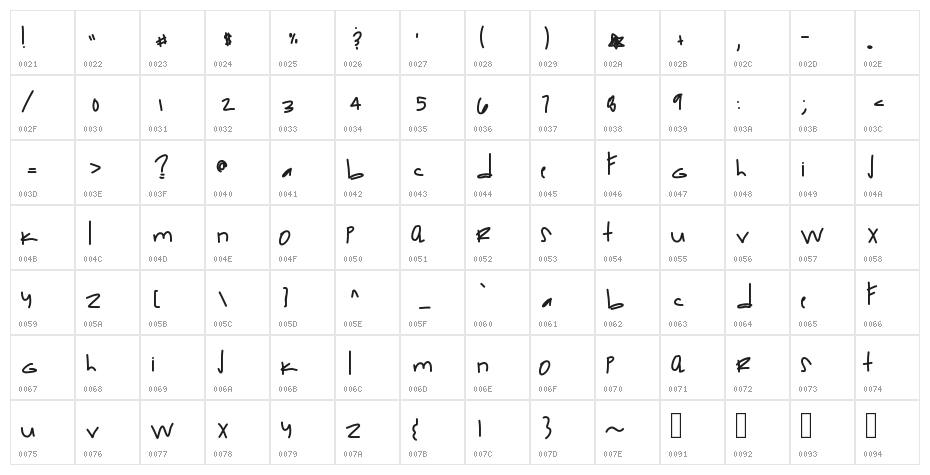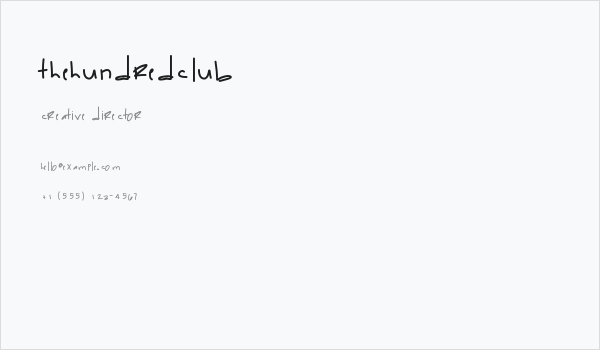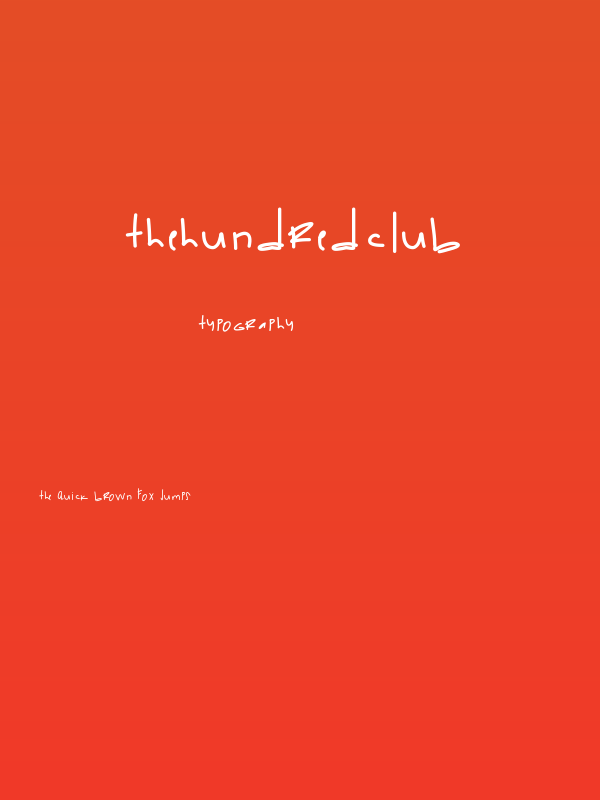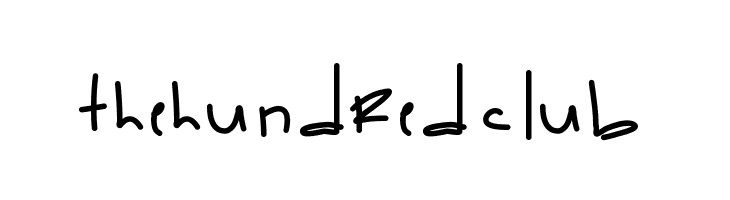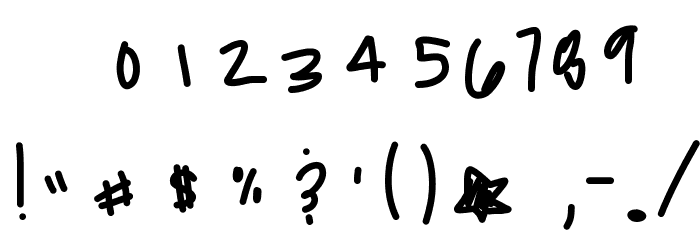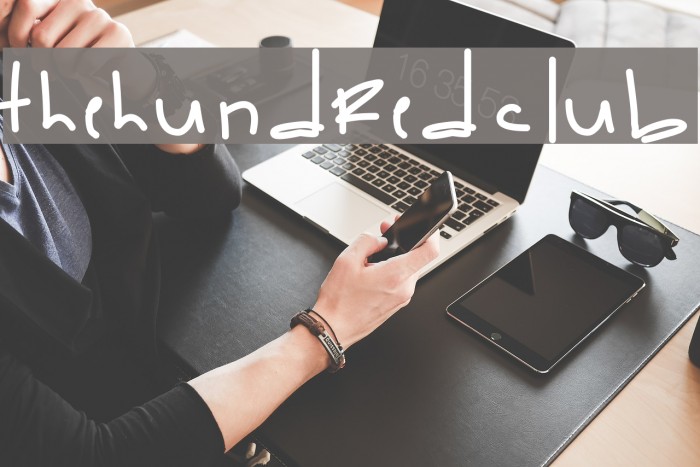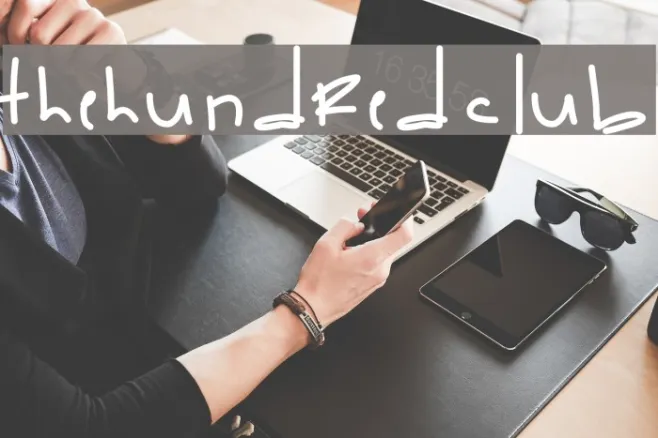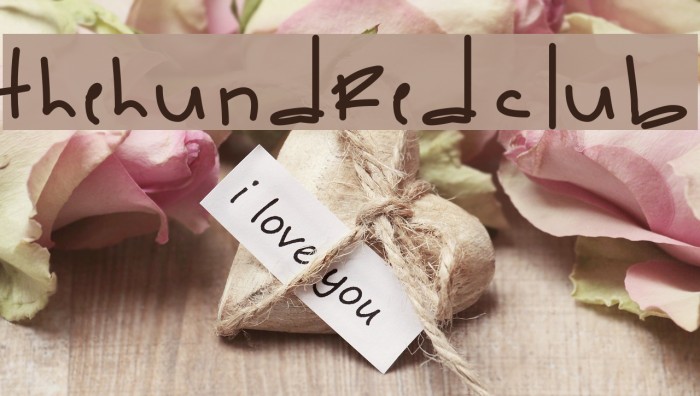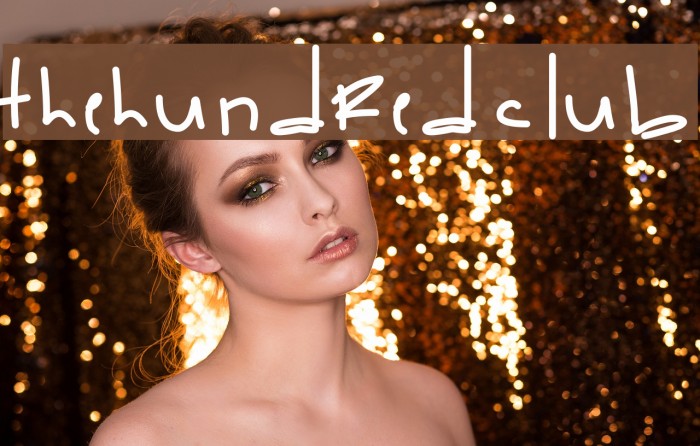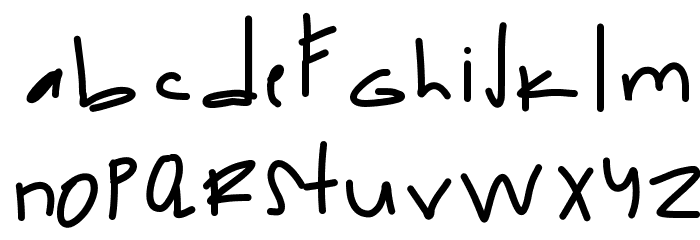
TheHundredClub Font
TheHundredClub Description
This font features a casual, handwritten style that exudes a sense of informality and approachability. The characters are slightly irregular, mimicking the natural flow of handwriting. The strokes are consistent in width, giving it a uniform appearance despite its playful nature. The font includes both uppercase and lowercase letters, numerals, and a variety of special characters. Its overall look is friendly and personal, making it suitable for projects that require a human touch.
| Overall Style | Casual, Friendly |
| Use Case | Logos, Invitations, Personal Notes |
| Proposed Projects | Ideal for personal notes, greeting cards, informal invitations, and creative projects that benefit from a personal touch. |